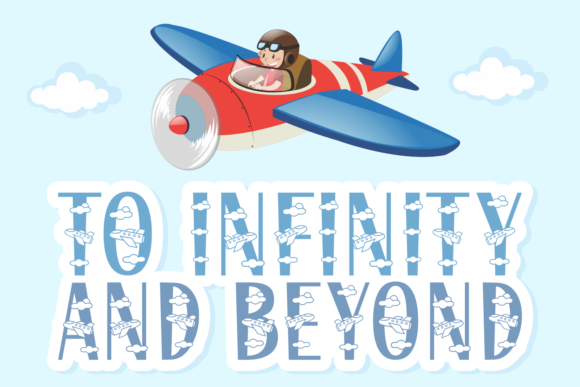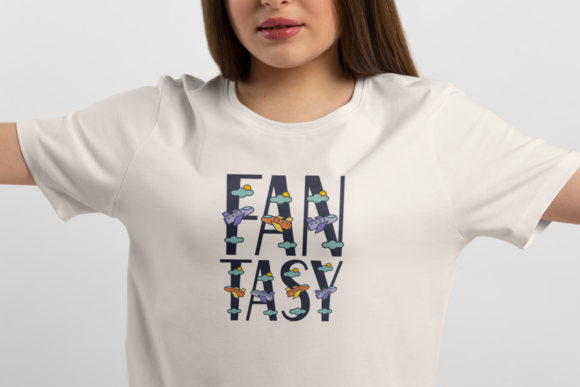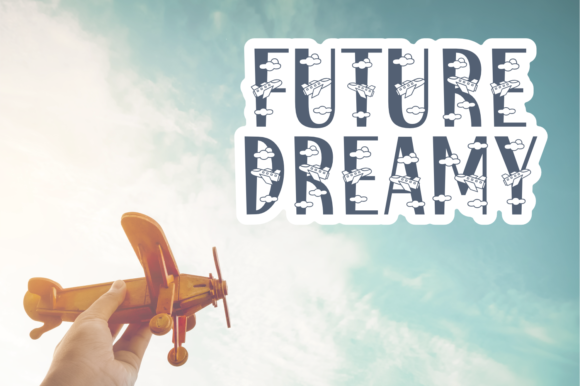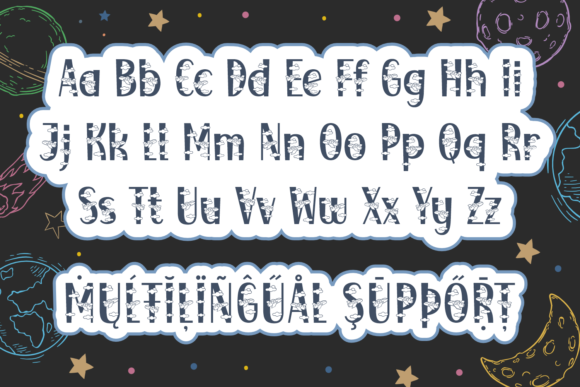
The Joy of Child Plane Font: A Designer’s New Best Friend
I still remember the time I was working on a project for a children’s book, and I just couldn’t seem to find the right font. The client wanted something playful, youthful, and engaging, but everything I tried seemed either too boring or too over-the-top. That’s when I stumbled upon Child Plane Font, and it was love at first sight! 💕
As a designer, I can be pretty particular about my fonts, but Child Plane won me over with its unique blend of playfulness and charm. In this article, I’ll share my honest review of this delightful font, along with some practical tips on how to use it, similar font alternatives, and a little backstory behind its creation.
An Honest Review of Child Plane Font
- ✨ Unique and playful design that’s perfect for kids’ projects
- 🎉 Supports OpenType features, glyphs, and stylistic alternates for added creativity
- 🌈 Available in a range of languages and scripts
While Child Plane Font is an amazing addition to any design project, there are a few things to keep in mind:
- 🤔 Some characters may not work well in all contexts, so be sure to test it thoroughly
- ⚠️ May not be suitable for very formal or professional projects (unless you’re going for a playful twist!)
The Backstory Behind Child Plane Font
According to the font’s creators, Child Plane Font was inspired by the whimsical world of children’s books and toys. The goal was to create a font that’s both playful and legible, perfect for bringing stories and characters to life. Whether or not that’s true, one thing’s for sure: Child Plane Font has captured the hearts of designers and crafters around the world! 🌎
Q: Is Child Plane Font suitable for very young children?
A: Absolutely! Child Plane Font is designed to be fun and engaging, making it perfect for kids’ materials, including storybooks, educational resources, and more.